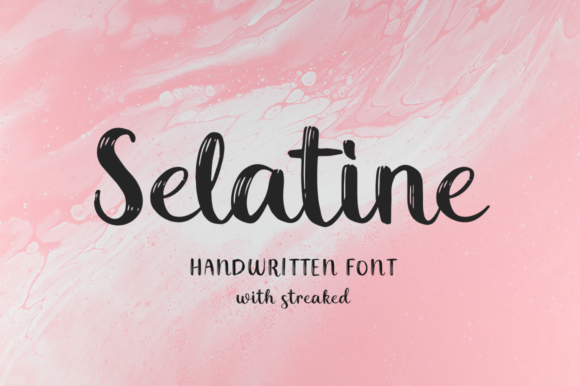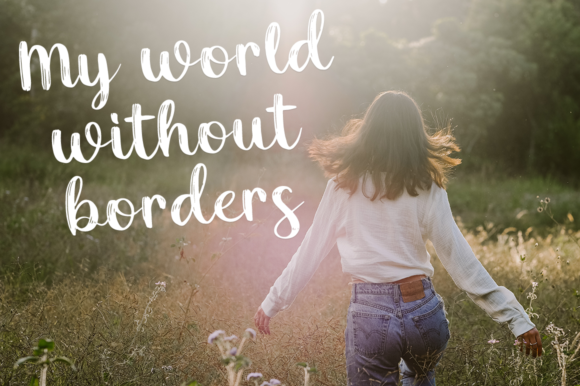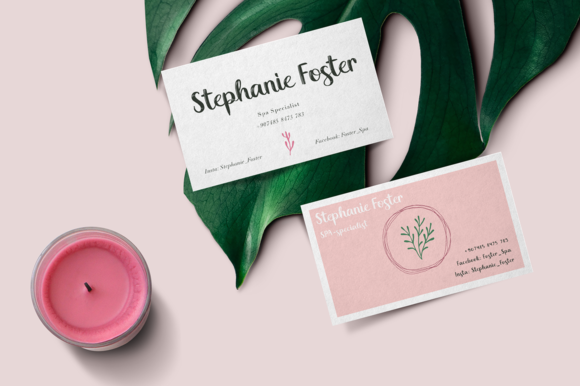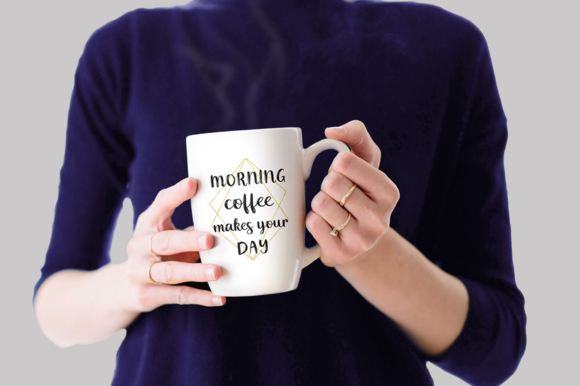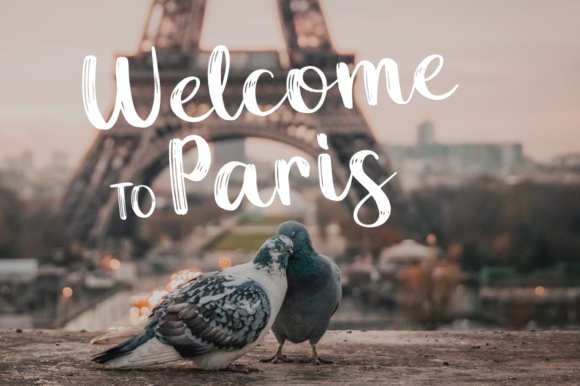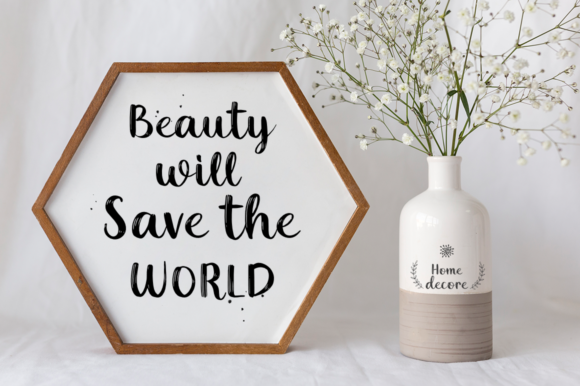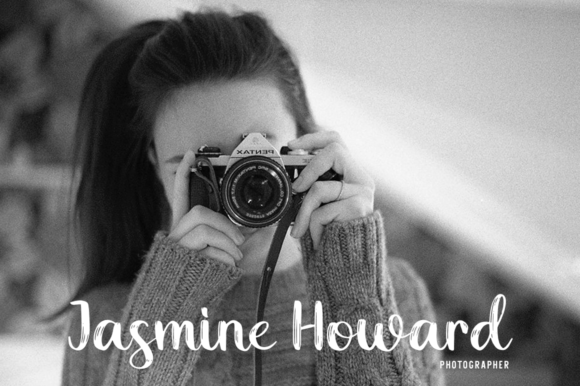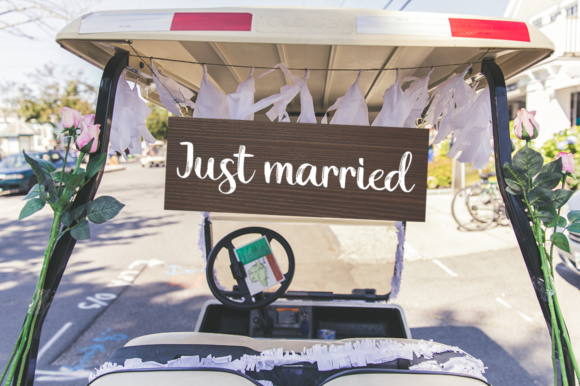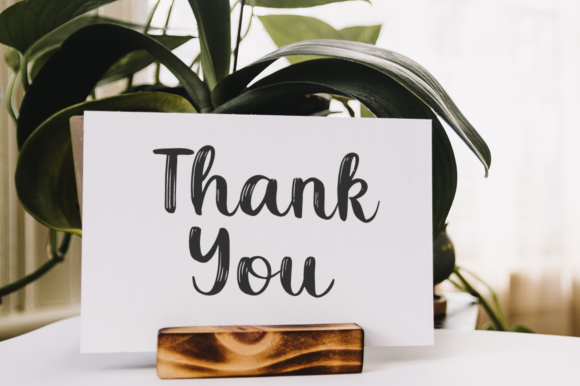
Selatine Font
About Selatine Font
Selatine is a charming and elegant handwritten font with a contemporary feel. It will add a level of authenticity to any design idea!